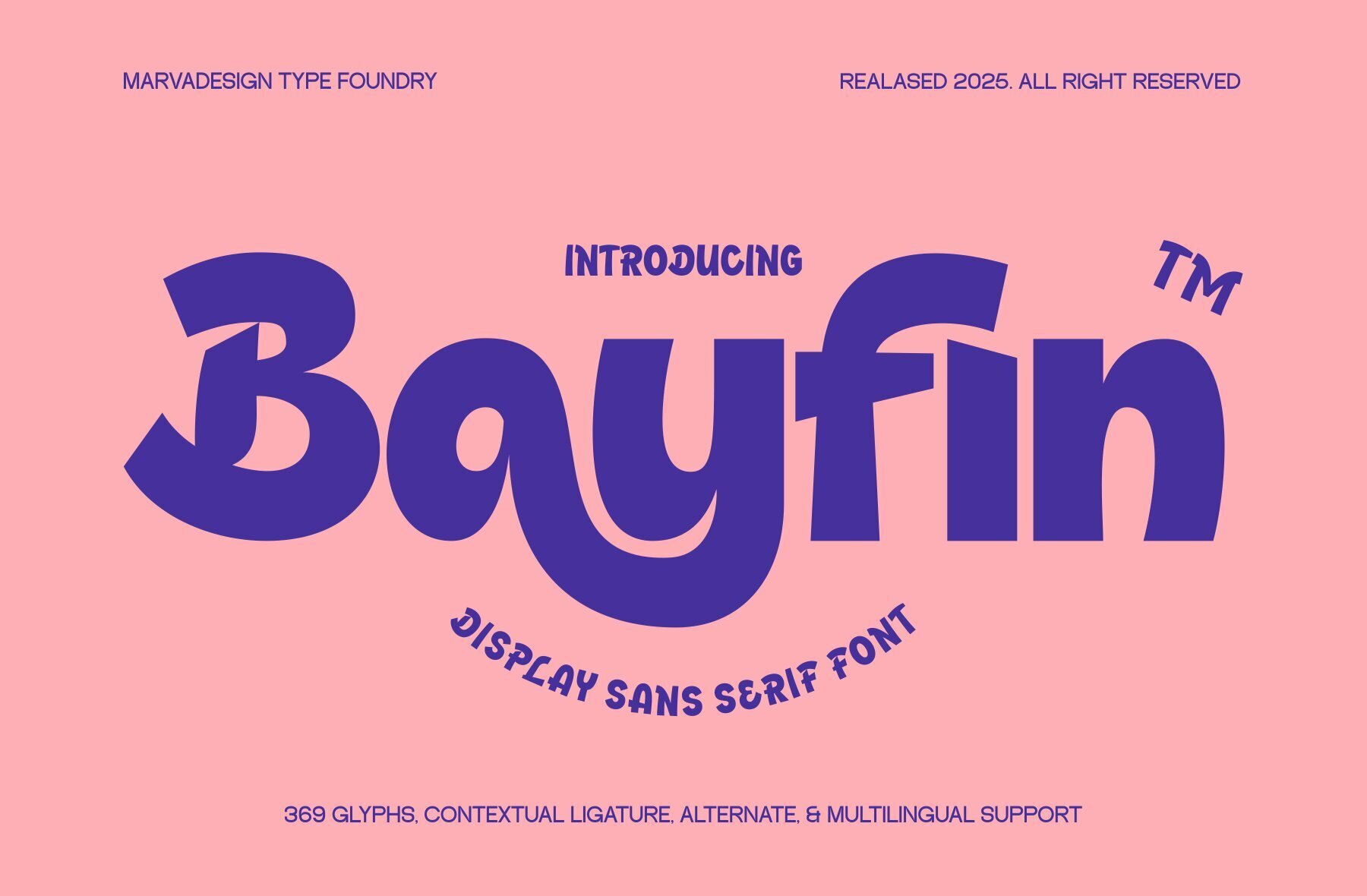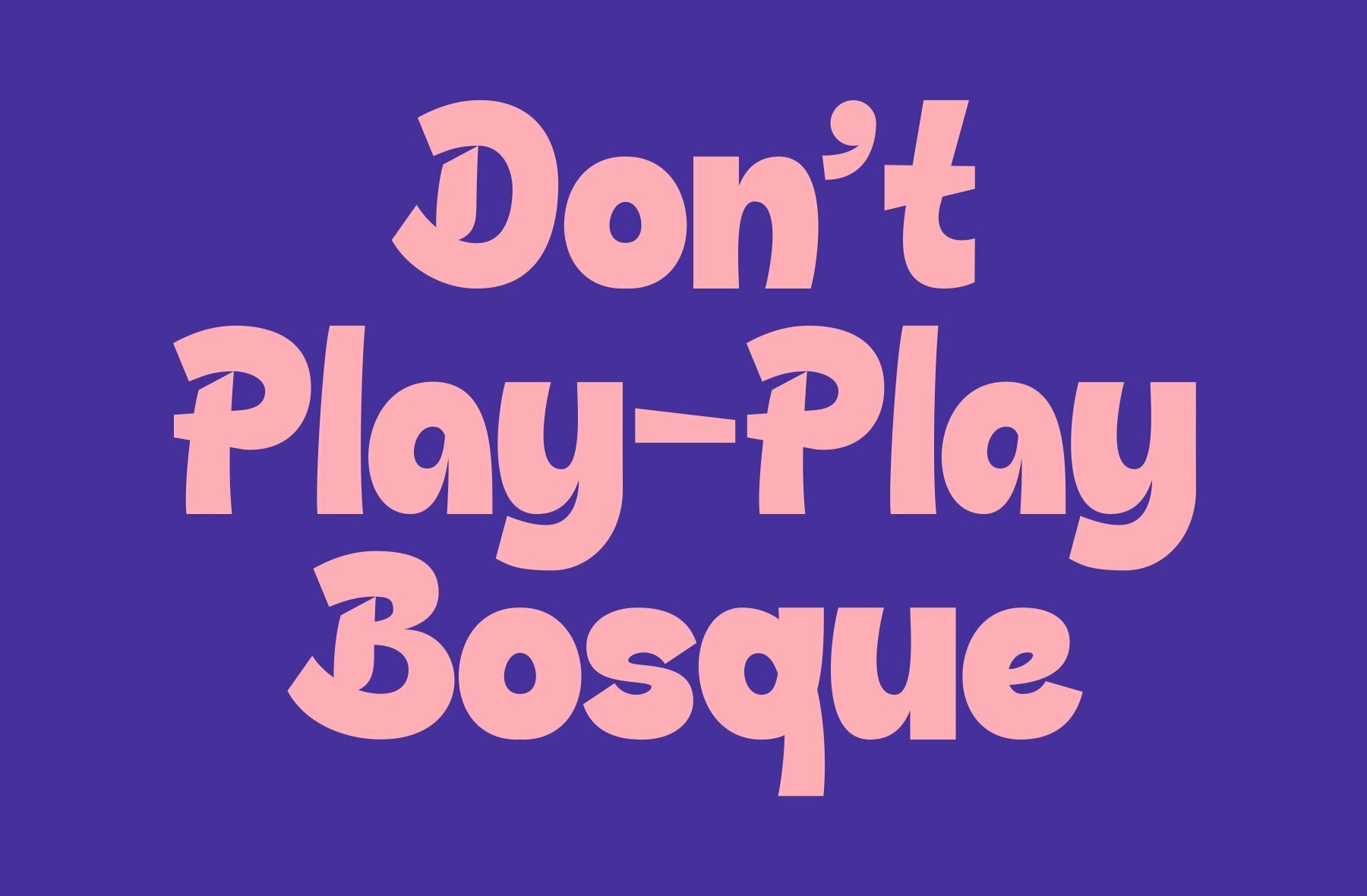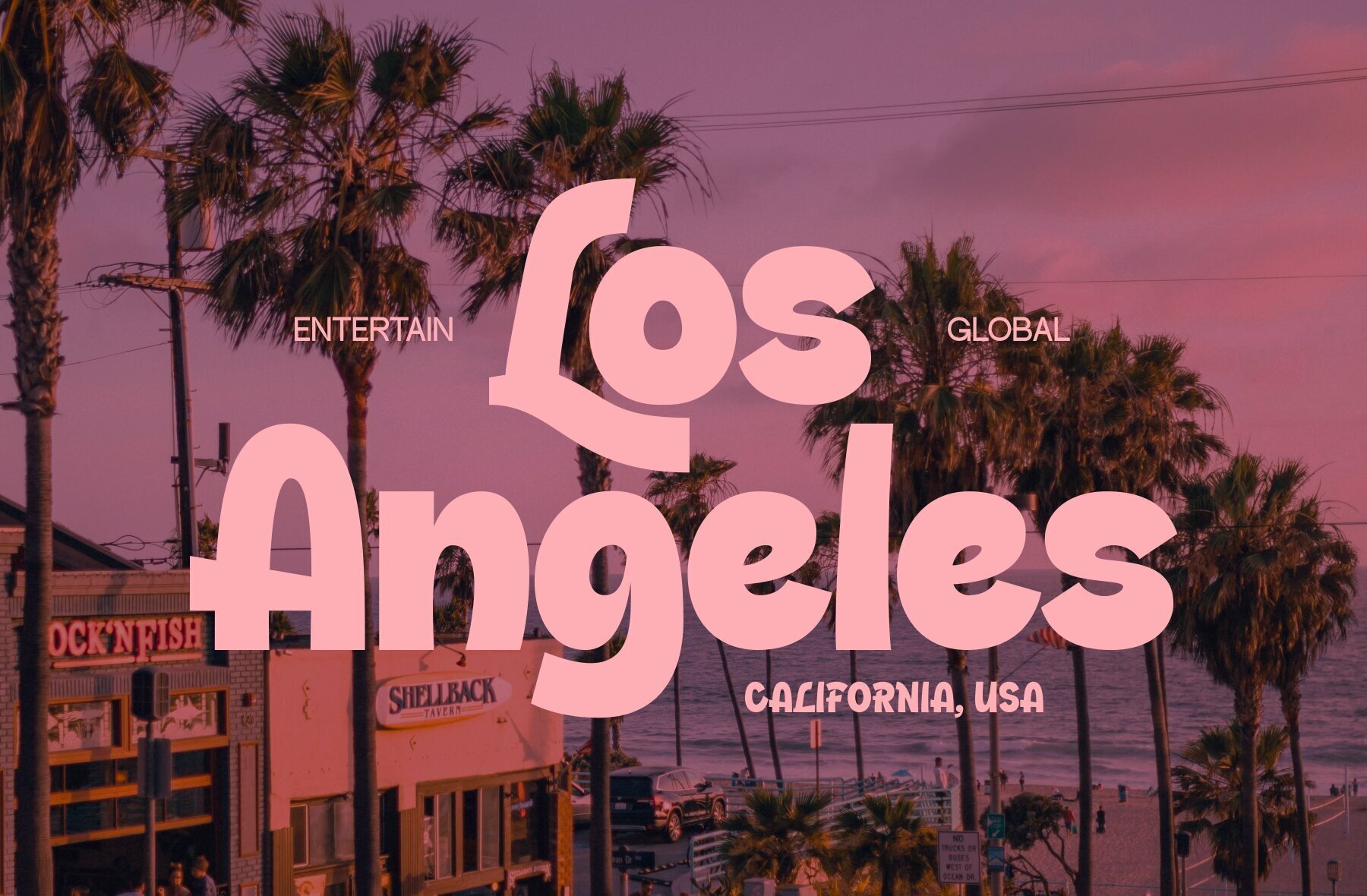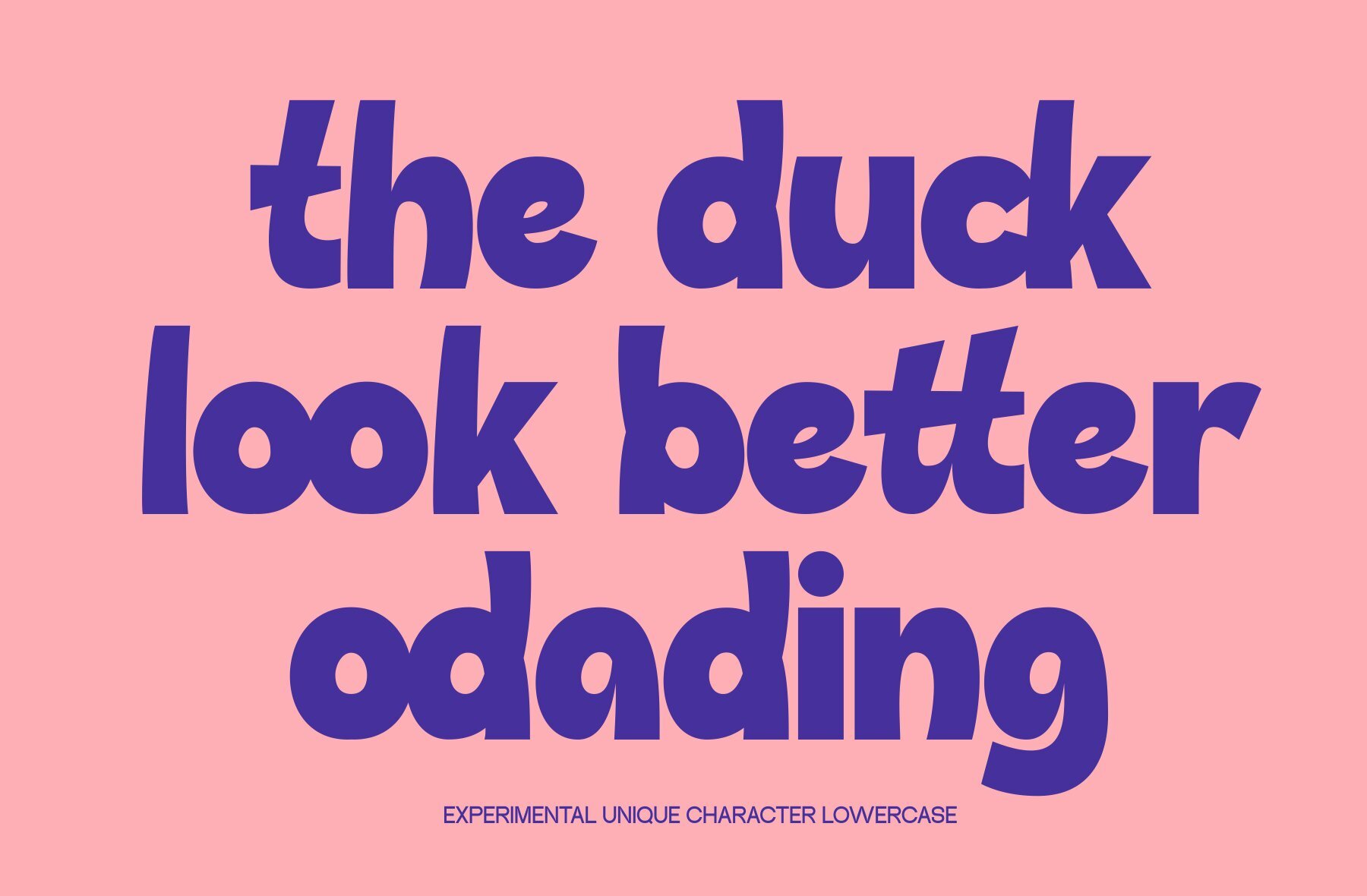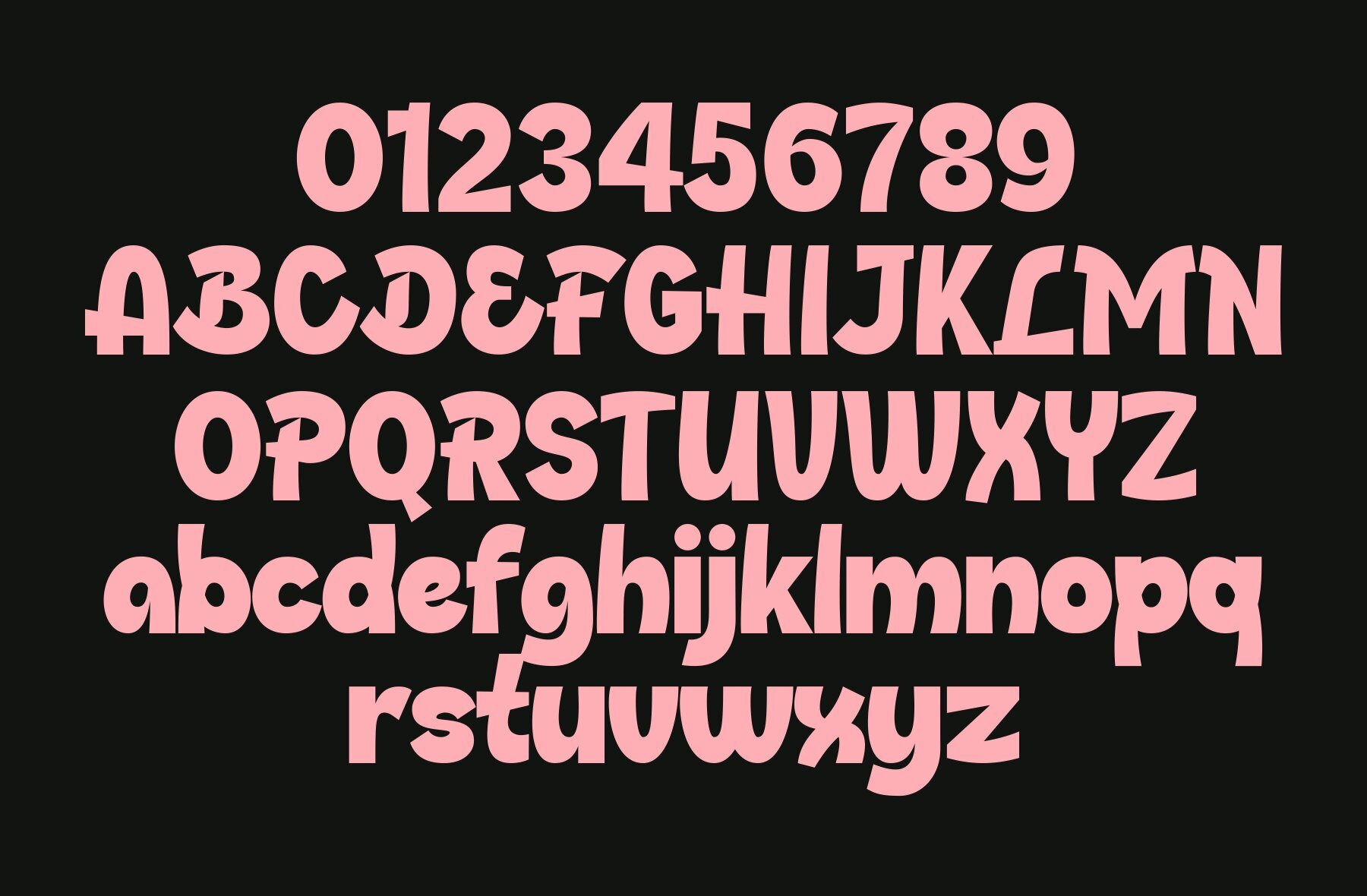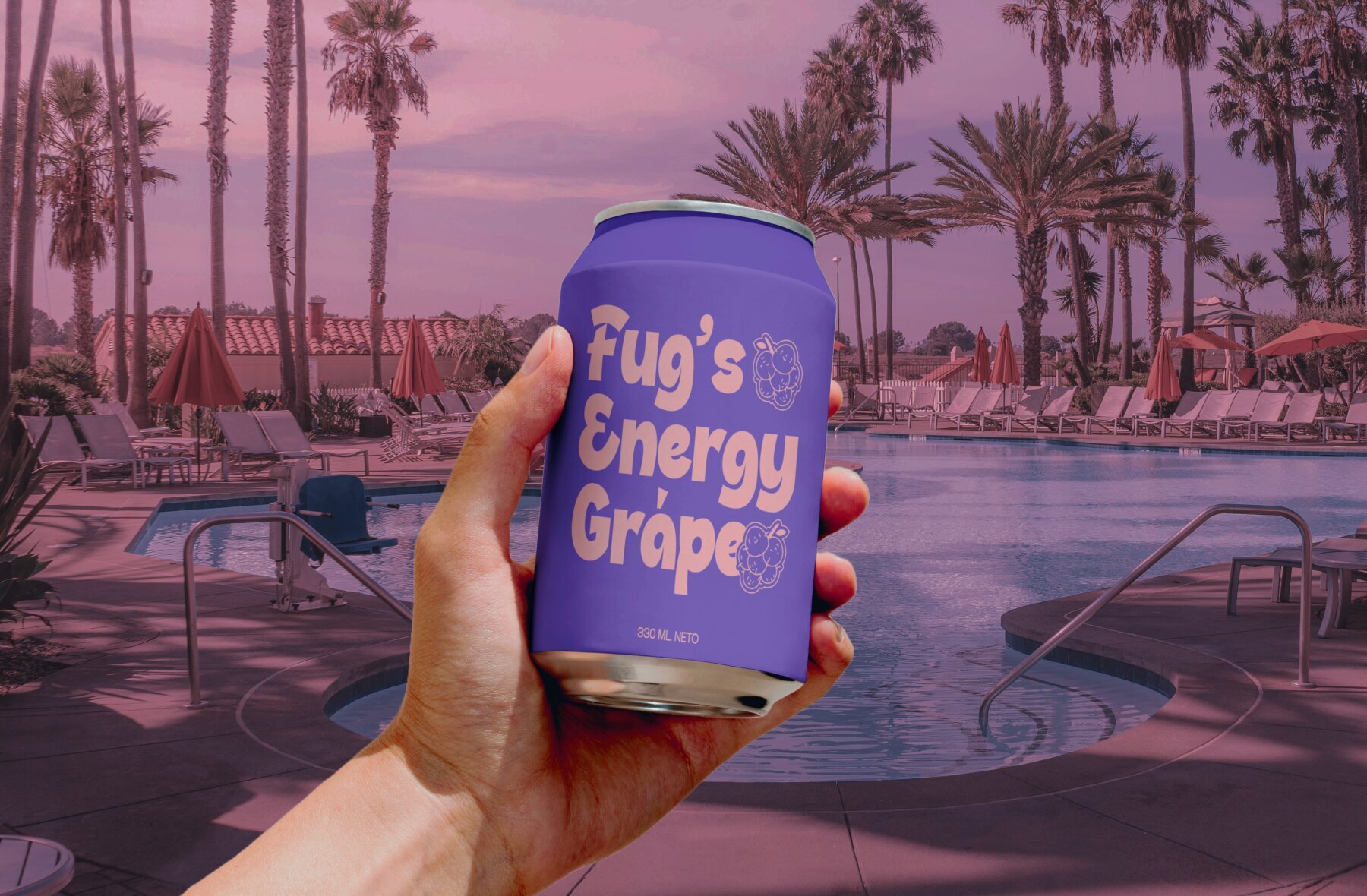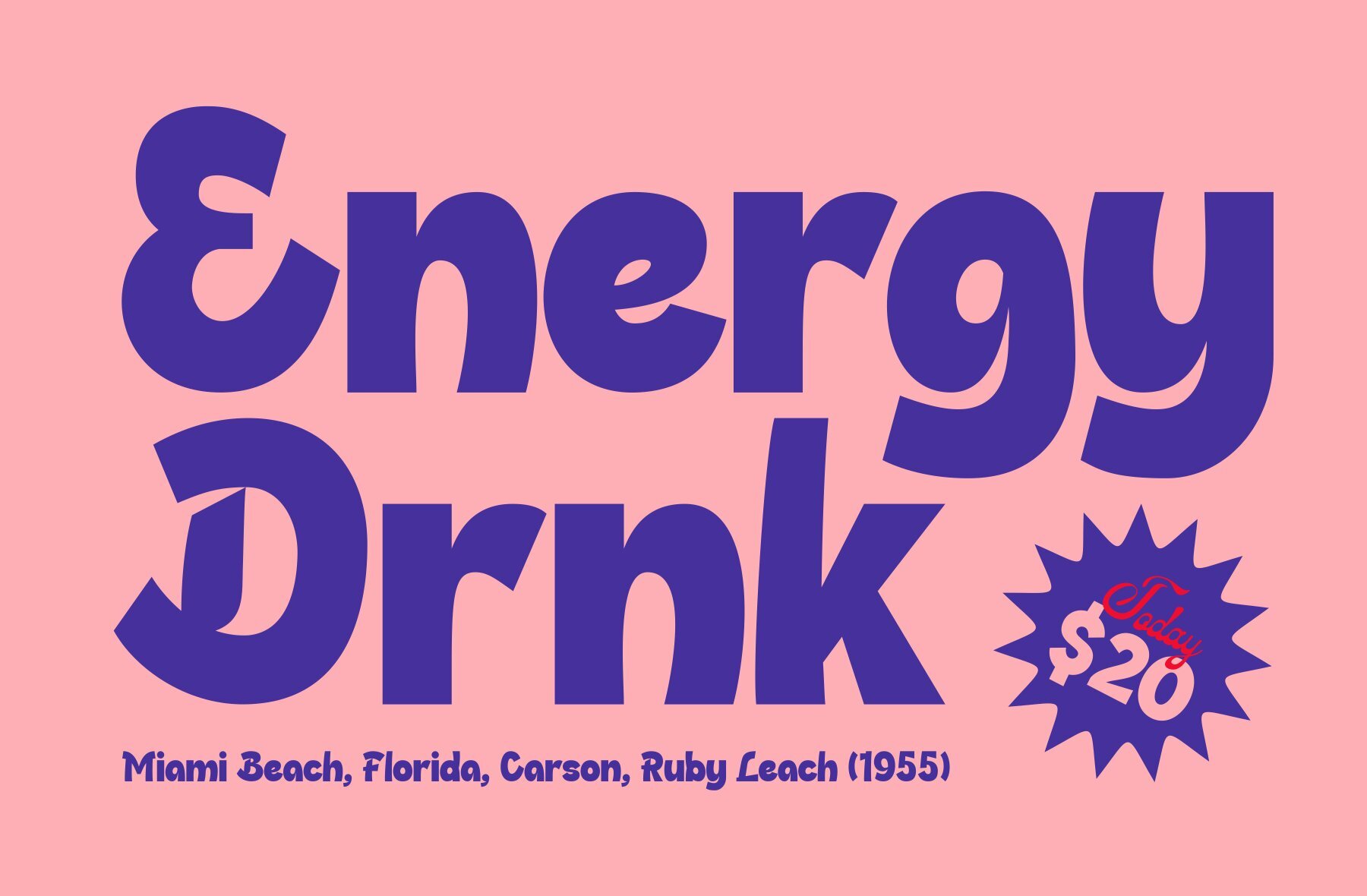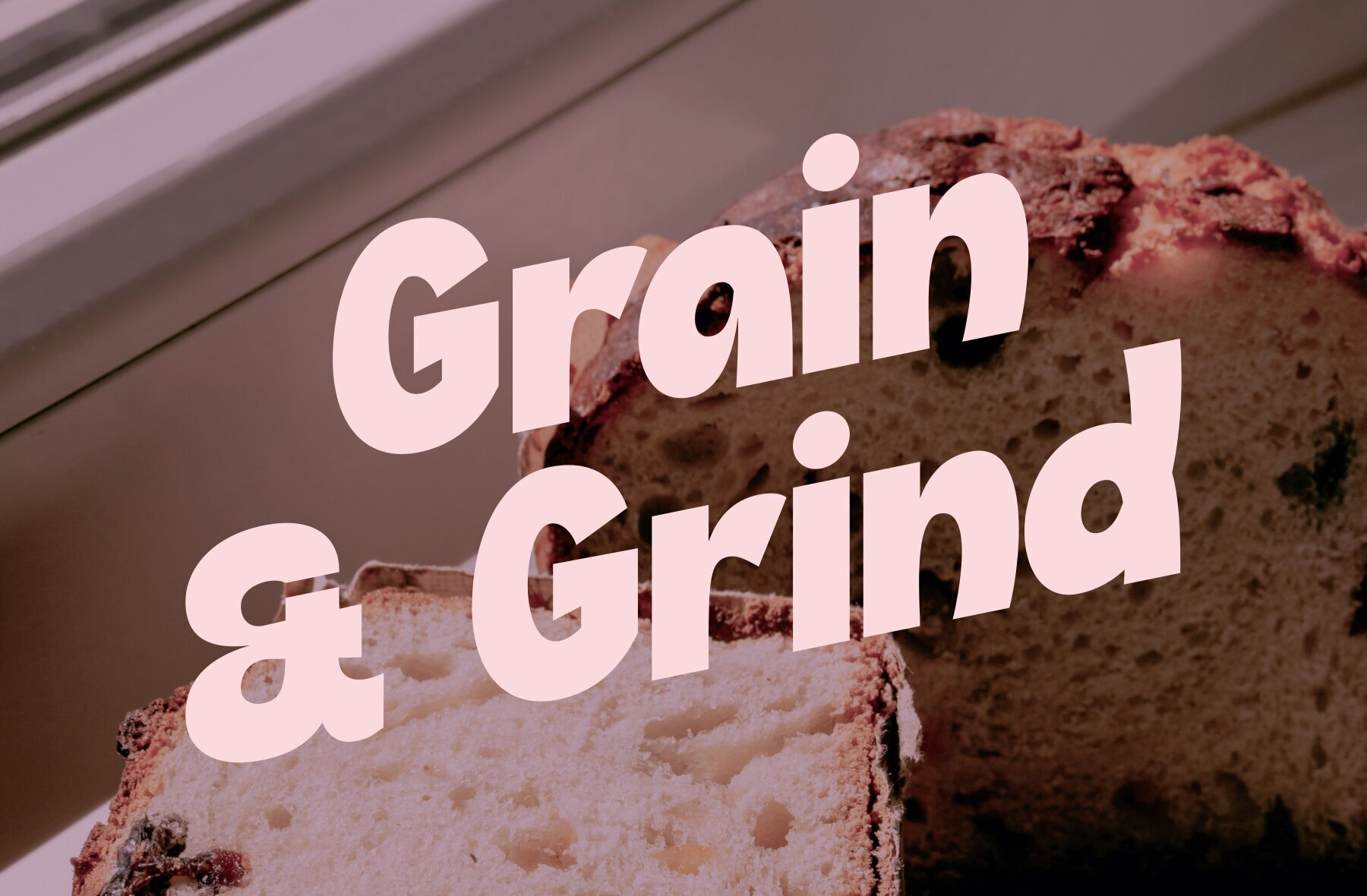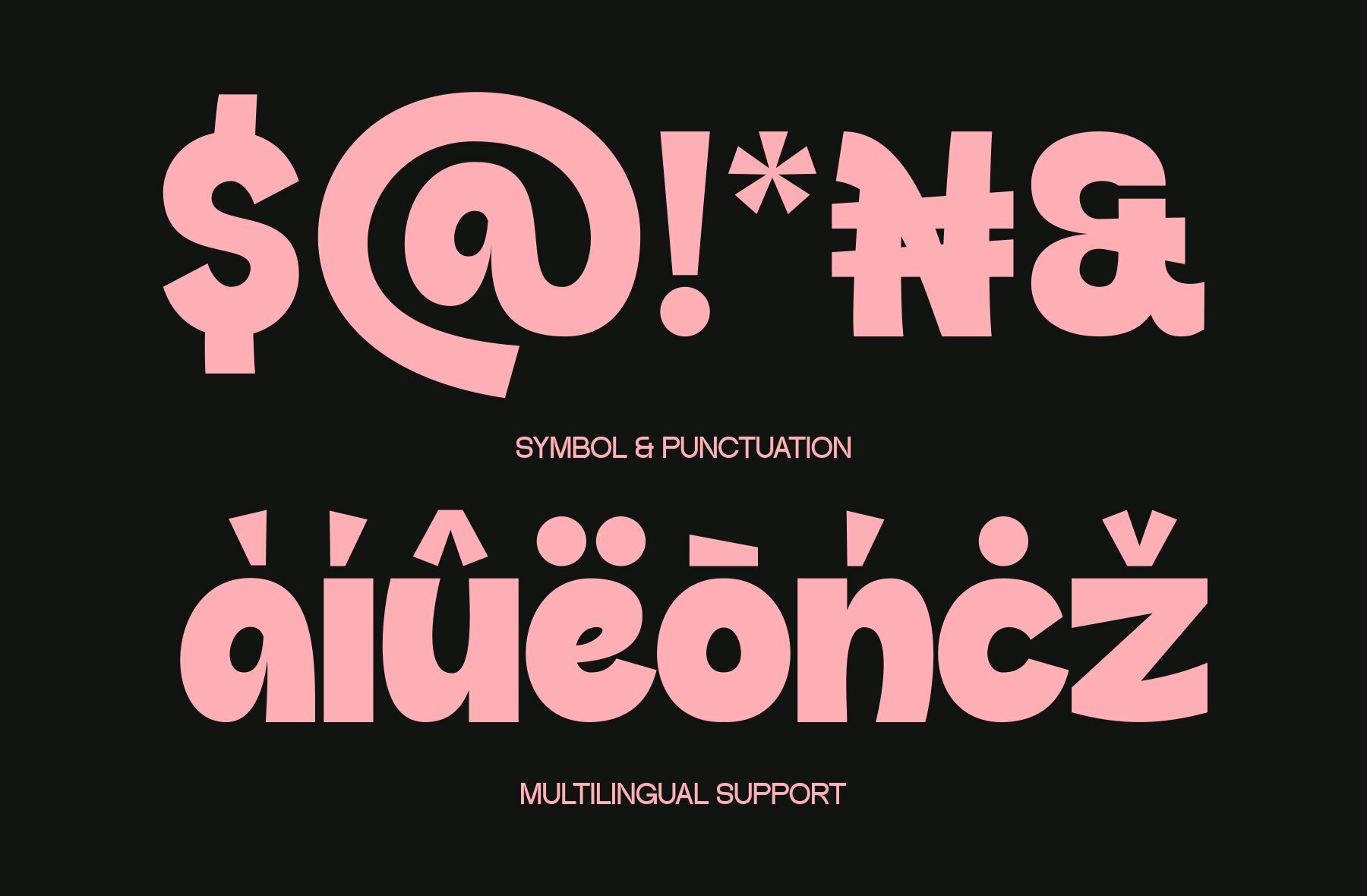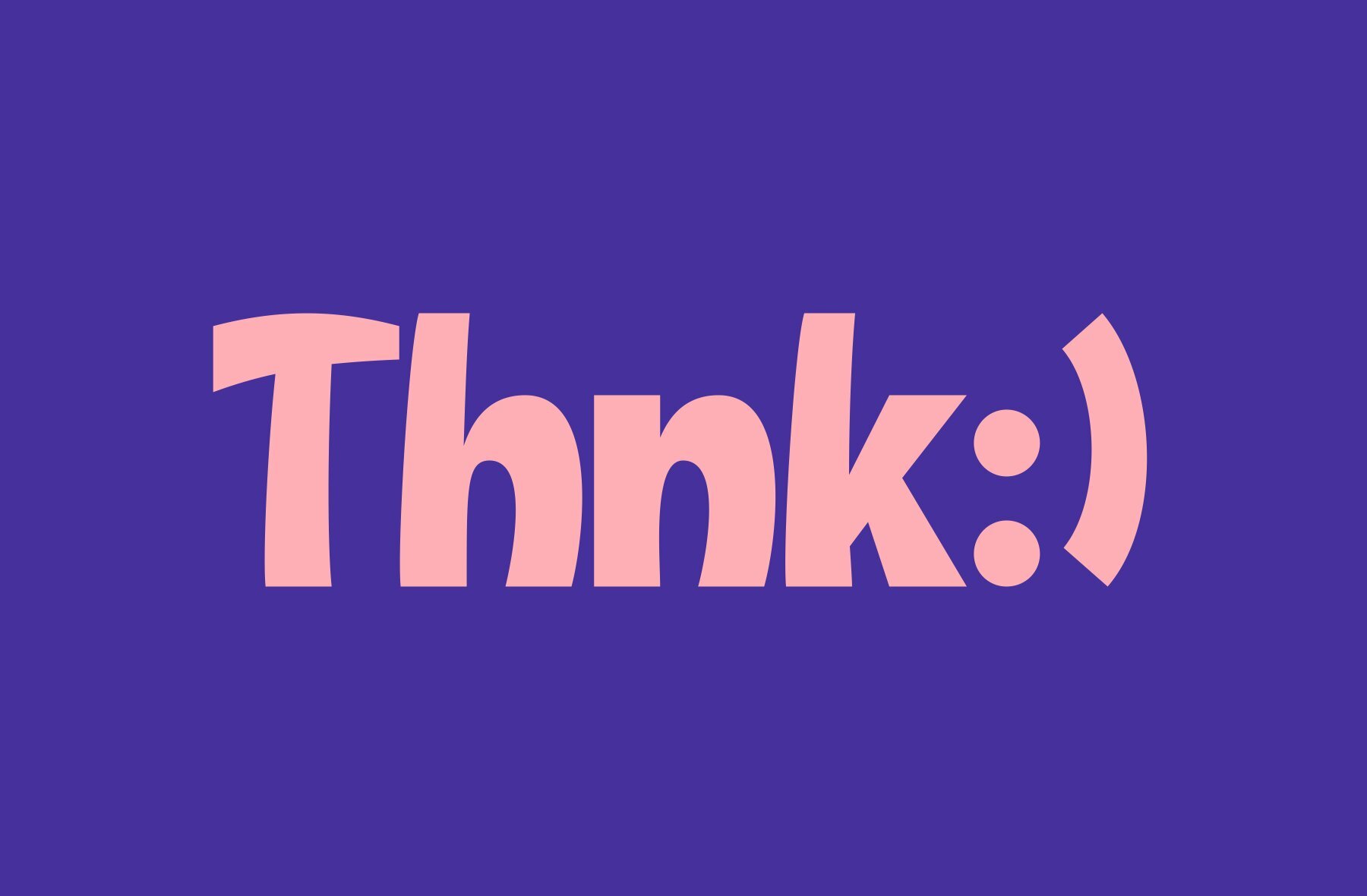
Bayfin Font
Bayfin
Bayfin emerges as a bold and playful sans-serif typeface, infusing any design with its quirky, energetic character. Distinctive for its thick, exaggerated curves, this font embodies a strong geometric influence that enhances its unique and lively persona. Designed by Marvadesign Type Foundry, Bayfin offers 369 glyphs, including contextual ligatures, alternates, and multilingual support, ensuring its versatility across various creative applications. With its fun and friendly vibe, Bayfin excels in creating designs that capture immediate attention, making it a perfect choice for any project that desires to stand out with a sense of fun and motion.Bayfin: A Spirited Display Typeface
Characteristics and Uses